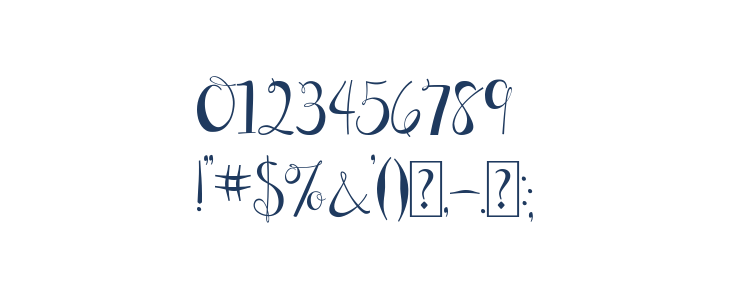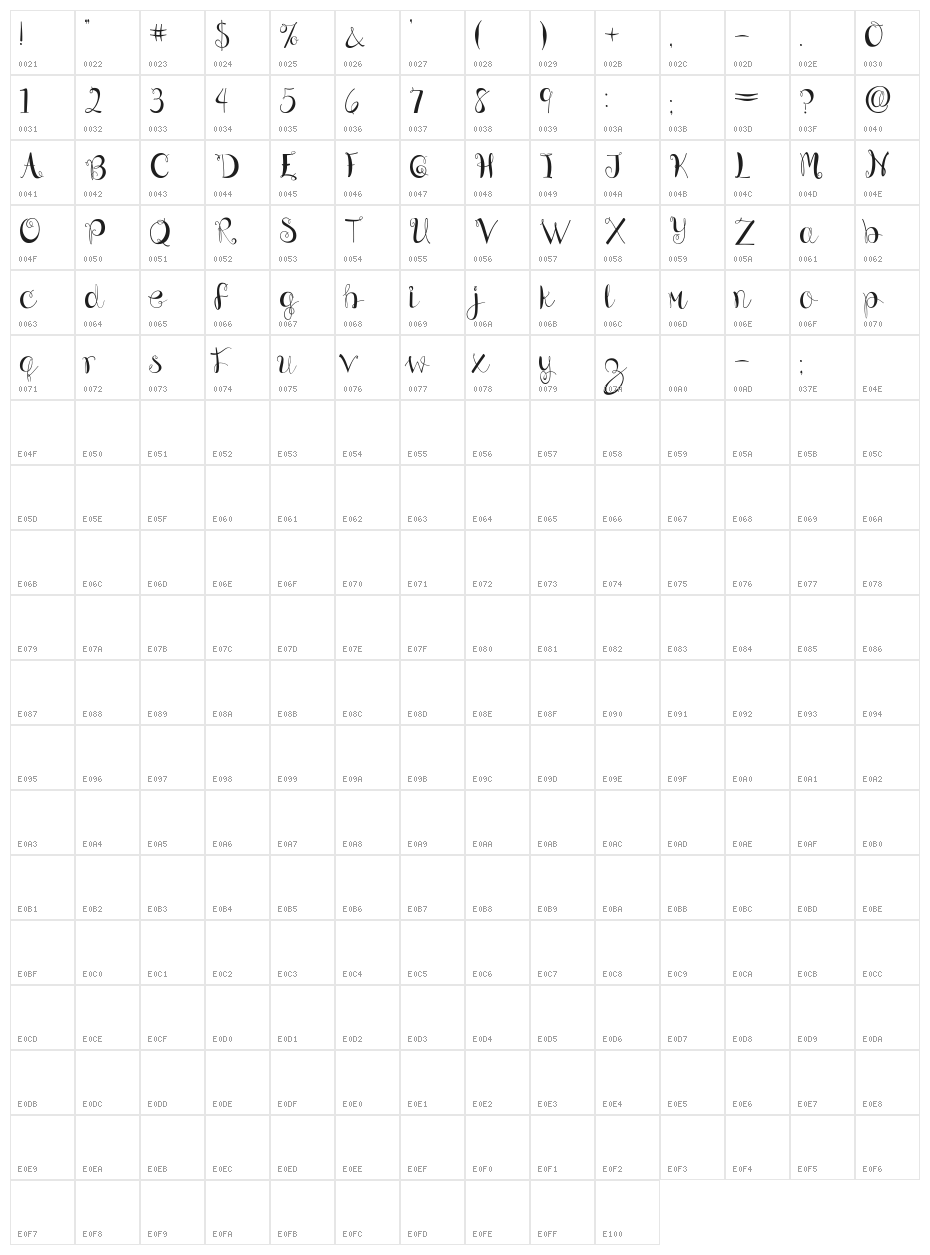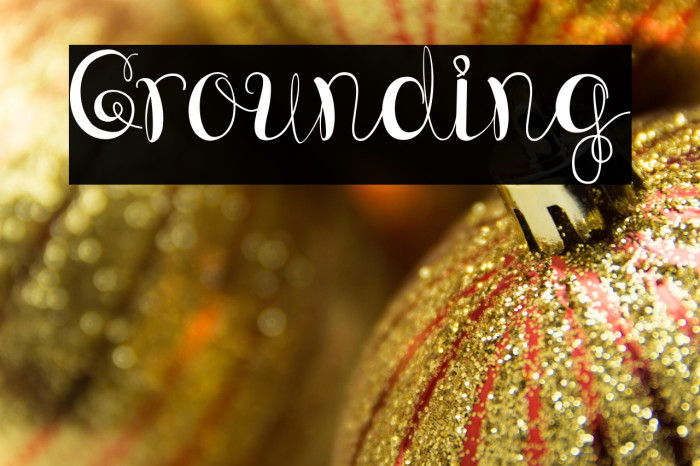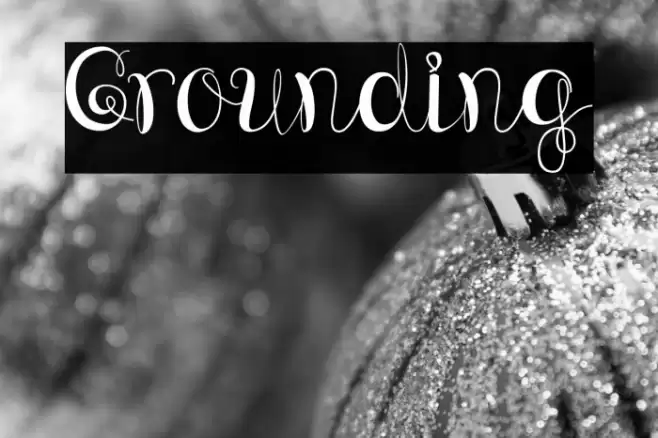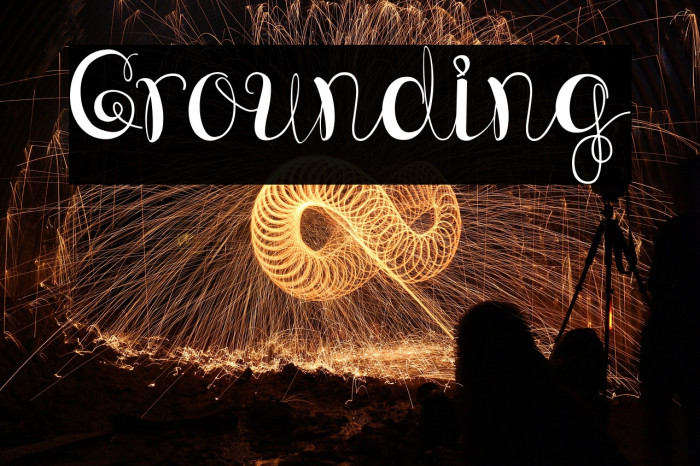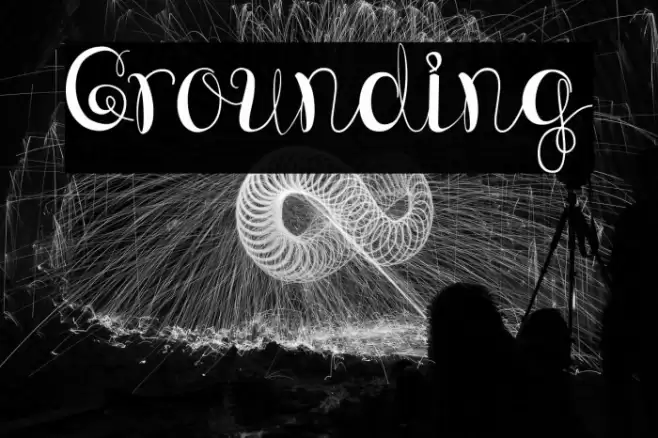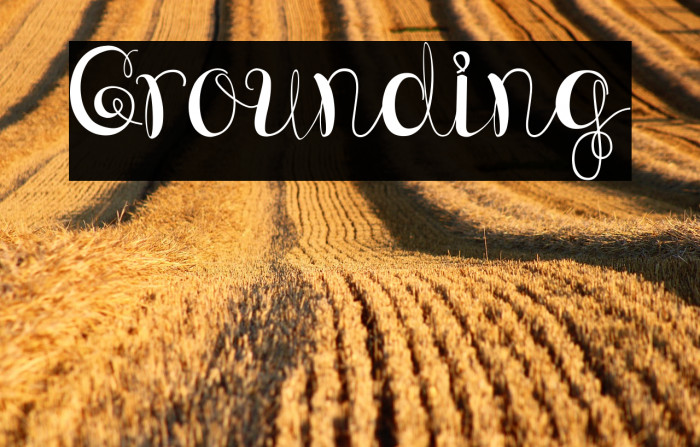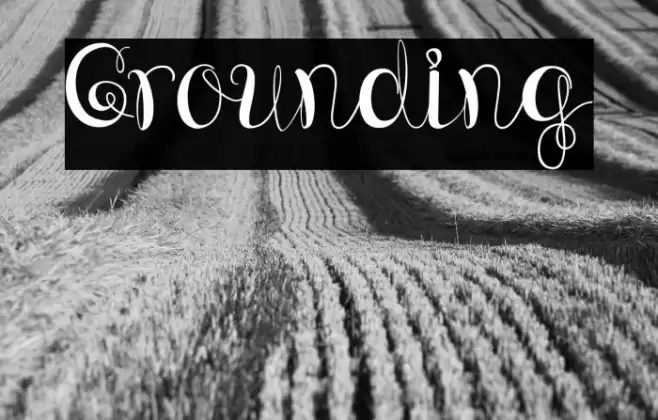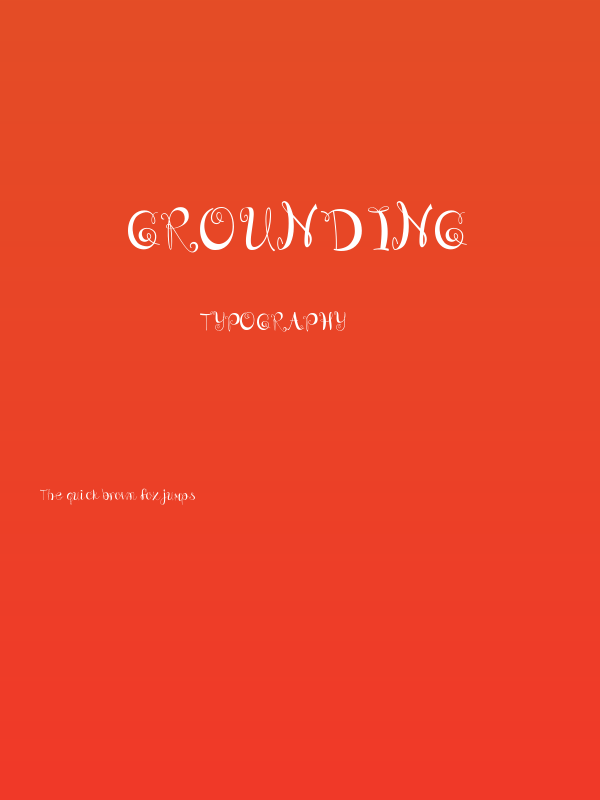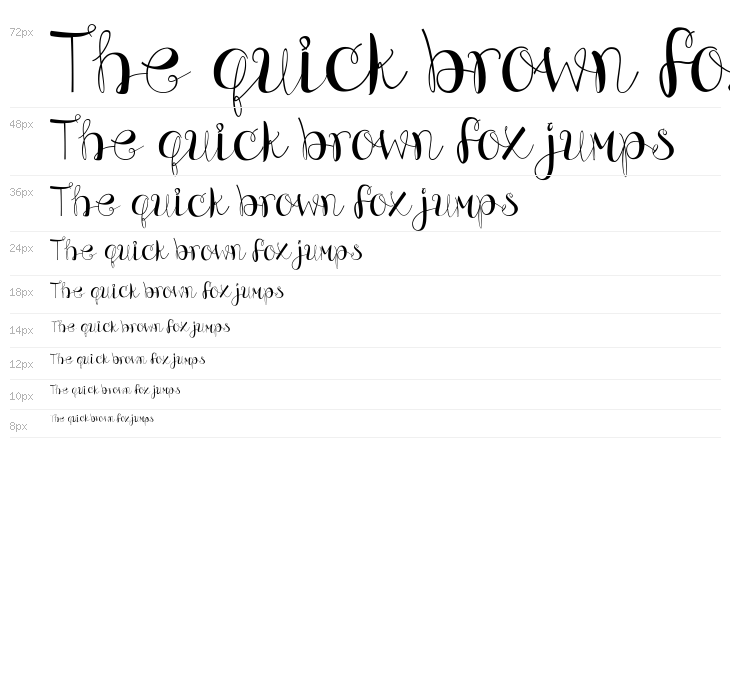
Grounding Font
Grounding Description
This font features an elegant and whimsical design, characterized by its decorative swirls and loops that extend from the main strokes of each character. The uppercase letters are particularly ornate, with flourishes that add a sense of movement and playfulness. The lowercase letters maintain a consistent style, with some characters featuring unique embellishments that enhance their visual appeal. The numerals are equally stylized, blending seamlessly with the overall aesthetic. Special characters are designed with the same attention to detail, making them suitable for creative and artistic projects. The font's unique style makes it ideal for use in invitations, greeting cards, and other decorative applications where a touch of elegance and creativity is desired.
| Proposed Projects | Ideal for wedding invitations, greeting cards, artistic posters, and branding materials that require a creative and elegant touch. |